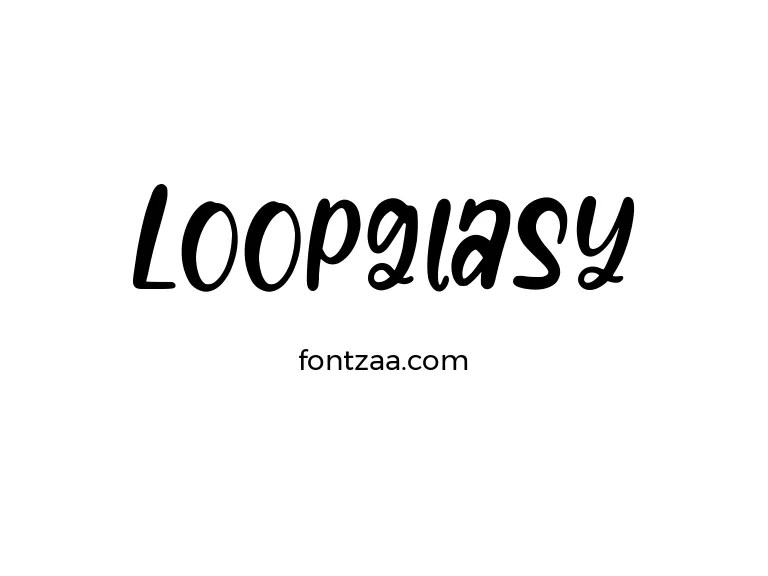
Loopglasy Font offers expressive lettering for designers looking for a elegant visual direction. The visual character of Loopglasy Font makes it an interesting choice for designers working on creative display work. Its letter shapes become especially noticeable at larger sizes, where spacing and proportions can be explored more clearly. Testing several arrangements before choosing the final version can reveal which characteristics of the typeface work best. The font can work as the primary visual element in a minimal layout or as part of a more detailed composition. Creative uses may range from invitations, wedding stationery, signatures, quotes and elegant branding, with different results depending on scale and layout. A clean serif or sans serif companion can handle smaller text while this font remains focused on headlines and key messages. Keeping secondary typography simple often allows the distinctive qualities of the main font to remain more visible. The available source information lists Qwrtype Foundry as the designer or publisher. The listed license is Free for personal use, although users should still review the original font package before commercial use. Its final appearance will depend heavily on the surrounding colors, imagery, spacing and supporting typography.
The visual character of Loopglasy Font makes it an interesting choice for designers working on headlines, branding and promotional layouts. Testing several arrangements before choosing the final version can reveal which characteristics of the typeface work best. Its letter shapes become especially noticeable at larger sizes, where spacing and proportions can be explored more clearly. Using generous space around the lettering can help the details of the typeface remain visible instead of competing with other elements. Creative uses may range from invitations, wedding stationery, signatures, quotes and elegant branding, with different results depending on scale and layout. For layouts containing longer information, pairing it with a simpler supporting typeface can improve readability and hierarchy. Designers should evaluate the typeface inside the real project because a standalone preview cannot show every possible visual combination. The designer or publisher information available for this typeface is Qwrtype Foundry. The listed license is Free for personal use, although users should still review the original font package before commercial use. Its final appearance will depend heavily on the surrounding colors, imagery, spacing and supporting typography.
With its distinctive letterforms, Loopglasy Font can introduce a elegant character into digital and print projects. The typeface can change considerably depending on tracking, scale, alignment, background and surrounding imagery. Different color combinations can make the same font feel subtle, energetic, premium or highly decorative. Using generous space around the lettering can help the details of the typeface remain visible instead of competing with other elements. Designers may explore it across invitations, wedding stationery, signatures, quotes and elegant branding, depending on the tone and requirements of the project. Designers should evaluate the typeface inside the real project because a standalone preview cannot show every possible visual combination. Keeping secondary typography simple often allows the distinctive qualities of the main font to remain more visible. The available source information lists Qwrtype Foundry as the designer or publisher. Current license information is shown as Free for personal use; checking the original documentation is recommended before client or commercial work. Testing the font with the actual project text can provide a much better impression than viewing isolated sample characters.
Loopglasy Font Family
The Loopglasy Font Family gives designers a flexible display option that can be adapted through changes in size, spacing, alignment and color. With its distinctive letterforms, Loopglasy Font can introduce a elegant character into font-family exploration. The font can work as the primary visual element in a minimal layout or as part of a more detailed composition. Different color combinations can make the same font feel subtle, energetic, premium or highly decorative. Testing several arrangements before choosing the final version can reveal which characteristics of the typeface work best. Creative uses may range from invitations, wedding stationery, signatures, quotes and elegant branding, with different results depending on scale and layout. For layouts containing longer information, pairing it with a simpler supporting typeface can improve readability and hierarchy. Print and digital layouts may require different sizing and spacing, so testing the actual output dimensions is recommended. Source metadata currently associates the font with Qwrtype Foundry. The listed license is Free for personal use, although users should still review the original font package before commercial use. Experimenting directly in the intended design is usually the best way to judge whether the typeface suits the project.
Design Ideas for Loopglasy Font
Loopglasy Font stands out through its individual shapes and can become an important visual element in different creative applications for the font. Different color combinations can make the same font feel subtle, energetic, premium or highly decorative. The font can work as the primary visual element in a minimal layout or as part of a more detailed composition. Testing several arrangements before choosing the final version can reveal which characteristics of the typeface work best. Its display-focused appearance makes it worth testing in invitations, wedding stationery, signatures, quotes and elegant branding. For layouts containing longer information, pairing it with a simpler supporting typeface can improve readability and hierarchy. Designers should evaluate the typeface inside the real project because a standalone preview cannot show every possible visual combination. Source metadata currently associates the font with Qwrtype Foundry. License details are currently listed as Free for personal use. Users should verify the supplied documentation before using the font in products or paid projects. The most effective treatment will vary by project, so designers should compare several versions before finalizing the artwork.
Visual Features of Loopglasy Font
For projects that need typography with a stronger identity, Loopglasy Font offers a elegant direction suited to the visual characteristics and design personality of the typeface. Different color combinations can make the same font feel subtle, energetic, premium or highly decorative. Using generous space around the lettering can help the details of the typeface remain visible instead of competing with other elements. The font can work as the primary visual element in a minimal layout or as part of a more detailed composition. Possible applications include invitations, wedding stationery, signatures, quotes and elegant branding. Print and digital layouts may require different sizing and spacing, so testing the actual output dimensions is recommended. A clean serif or sans serif companion can handle smaller text while this font remains focused on headlines and key messages. According to the available font information, the typeface is associated with Qwrtype Foundry. License details are currently listed as Free for personal use. Users should verify the supplied documentation before using the font in products or paid projects. Experimenting directly in the intended design is usually the best way to judge whether the typeface suits the project.
Loopglasy Font for Logo and Branding Design
Loopglasy Font stands out through its individual shapes and can become an important visual element in logos, wordmarks and visual identity systems. The font can work as the primary visual element in a minimal layout or as part of a more detailed composition. Different color combinations can make the same font feel subtle, energetic, premium or highly decorative. Testing several arrangements before choosing the final version can reveal which characteristics of the typeface work best. Possible applications include invitations, wedding stationery, signatures, quotes and elegant branding. Designers should evaluate the typeface inside the real project because a standalone preview cannot show every possible visual combination. Keeping secondary typography simple often allows the distinctive qualities of the main font to remain more visible. The available source information lists Qwrtype Foundry as the designer or publisher. The listed license is Free for personal use, although users should still review the original font package before commercial use. Experimenting directly in the intended design is usually the best way to judge whether the typeface suits the project.
Tips for Better Results With Loopglasy Font
Loopglasy Font stands out through its individual shapes and can become an important visual element in spacing, contrast, scale and layout decisions. Its letter shapes become especially noticeable at larger sizes, where spacing and proportions can be explored more clearly. The font can work as the primary visual element in a minimal layout or as part of a more detailed composition. Using generous space around the lettering can help the details of the typeface remain visible instead of competing with other elements. Creative uses may range from invitations, wedding stationery, signatures, quotes and elegant branding, with different results depending on scale and layout. For layouts containing longer information, pairing it with a simpler supporting typeface can improve readability and hierarchy. Previewing the final layout on both large and small screens helps identify spacing and readability problems early. According to the available font information, the typeface is associated with Qwrtype Foundry. The available licensing label is Free for personal use, but redistribution and commercial permissions should always be confirmed from the original source. Testing the font with the actual project text can provide a much better impression than viewing isolated sample characters.
Best Uses for Loopglasy Font
Loopglasy Font brings a elegant personality to typography and gives designers a flexible starting point for practical ways designers can use the typeface. Its letter shapes become especially noticeable at larger sizes, where spacing and proportions can be explored more clearly. Using generous space around the lettering can help the details of the typeface remain visible instead of competing with other elements. Different color combinations can make the same font feel subtle, energetic, premium or highly decorative. Creative uses may range from invitations, wedding stationery, signatures, quotes and elegant branding, with different results depending on scale and layout. A clean serif or sans serif companion can handle smaller text while this font remains focused on headlines and key messages. Print and digital layouts may require different sizing and spacing, so testing the actual output dimensions is recommended. According to the available font information, the typeface is associated with Qwrtype Foundry. The listed license is Free for personal use, although users should still review the original font package before commercial use. A few quick layout variations can help determine where the font creates the strongest visual result.